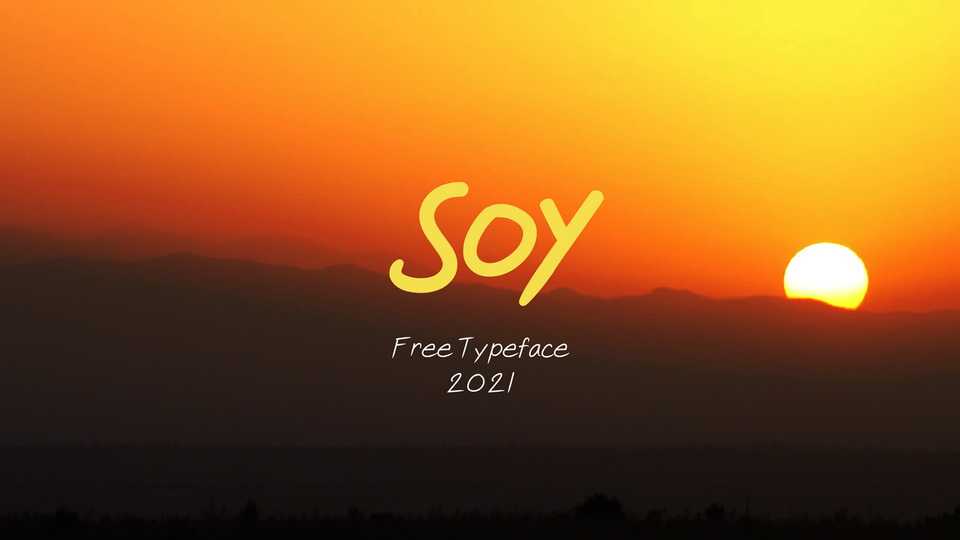
Download Soy typeface, a natural handwritten font family in two styles with a strong personality. Soy is perfect for creating quotes, notes, logos, badges or just adding a handwritten touch to any project.
Designer: Jepsoy Sarmiento